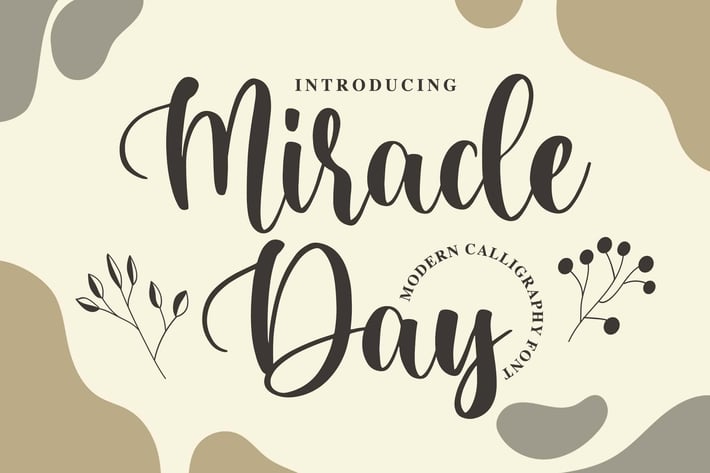
Miracle Day - Modern Calligraphy Font
Introducing of our new product the name is Miracle Day a modern calligraphy font. Miracle Day inspired by brush calligraphy style this font is a fun theme very good for display, tshirt design, craft, quote sign, logotype and etc